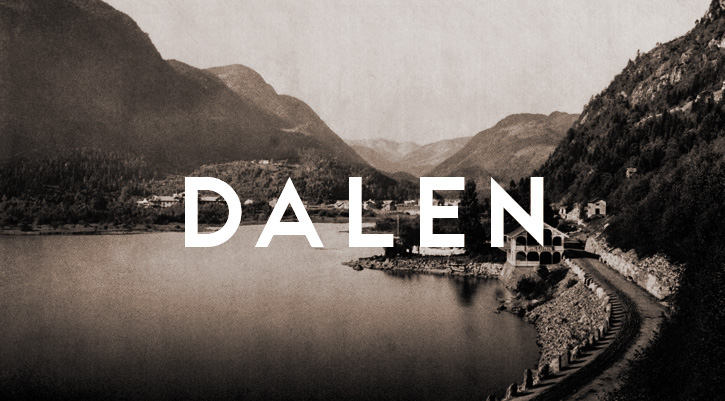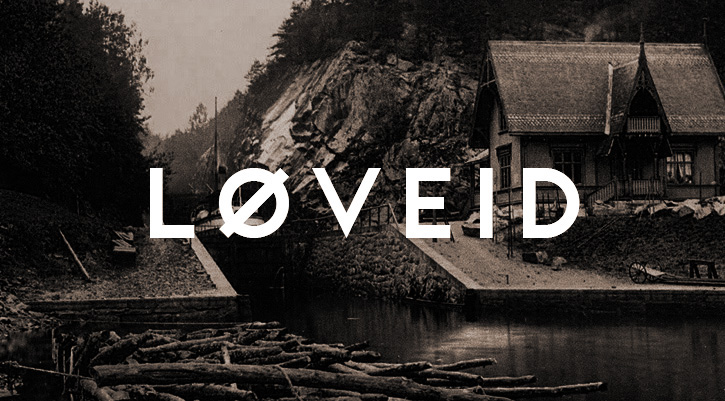
The Perfect Font for Captivating Titles
There’s something magical about stumbling upon the perfect font to elevate a design. The thrill of discovering a typeface that instantly communicates the tone and style of your project is a feeling that designers know all too well. For those moments when you need a font that demands attention, the CWG Sans Font is an excellent choice.
This powerful sans serif font is designed specifically to shine in titles and headlines, making it an essential tool in every designer’s toolkit. With its geometric and sharp look, CWG Sans Font differentiates itself from other fonts like Helvetica, offering a unique visual identity that’s sure to grab attention. Whether you’re working on a branding project, advertising campaign, or simply need a font to give your content a boost, CWG Sans Font is a valuable addition to any designer’s arsenal.
CWG Sans Font Key Features
- Font Family: CWG Sans is a sans-serif font family designed for clear and readable text.
- Character Set: Supports a wide range of languages, including Latin, Cyrillic, and Greek alphabets, making it suitable for international use.
- Unique Characteristics: CWG Sans features a clean and modern design, with subtle rounded edges and a friendly feel, making it suitable for corporate and editorial use.
CWG Sans Font Review
I’ve had the chance to work with CWG Sans Font for a project, and here’s my honest review.
- Neutrality: CWG Sans Font is a clean and neutral sans-serif font that works well for body text. It’s easy on the eyes and doesn’t distract from the content.
- Readability: The font is highly legible, even at smaller sizes, making it perfect for digital use.
- Lack of personality: CWG Sans Font is a safe choice, but it doesn’t have a unique personality that sets it apart from other sans-serif fonts.
- Limited expressiveness: The font is not ideal for creating emphasis or drawing attention to specific elements, as it’s too neutral.
- No bold/italic variations: While CWG Sans Font has a regular weight, it lacks bold and italic variations, which can be a limitation for certain design applications.
Overall, CWG Sans Font is a solid choice for body text, but it may not be the best option for projects that require a more expressive or unique font. It’s a good starting point, but it may not stand out in a crowded design landscape.
Tips for Getting the Most Out of CWG Sans Font
For optimal results, use CWG Sans Font in conjunction with a clean and modern design aesthetic.
Avoid using CWG Sans Font in conjunction with overly complex or ornate designs.
CWG Sans Font is ideal for:
- Business cards and resumes
- Website headers and footers
Alternatives to CWG Sans Font for Designers
Lato is a modern sans-serif typeface designed by Łukasz Dziedzic. It is suitable for use in digital products, signage, and branding materials. Lato is a great alternative to CWG Sans Font due to its clean and simple design, making it highly legible on screens and in print.
Comparison: Lato has a slightly more rounded and friendly feel compared to CWG Sans Font, which has a more geometric and modern aesthetic.
Open Sans is a popular sans-serif typeface designed by Steve Matteson. It is highly legible and versatile, making it suitable for use in digital products, websites, and print materials. Open Sans is a great alternative to CWG Sans Font due to its clean and simple design, making it highly readable on screens and in print.